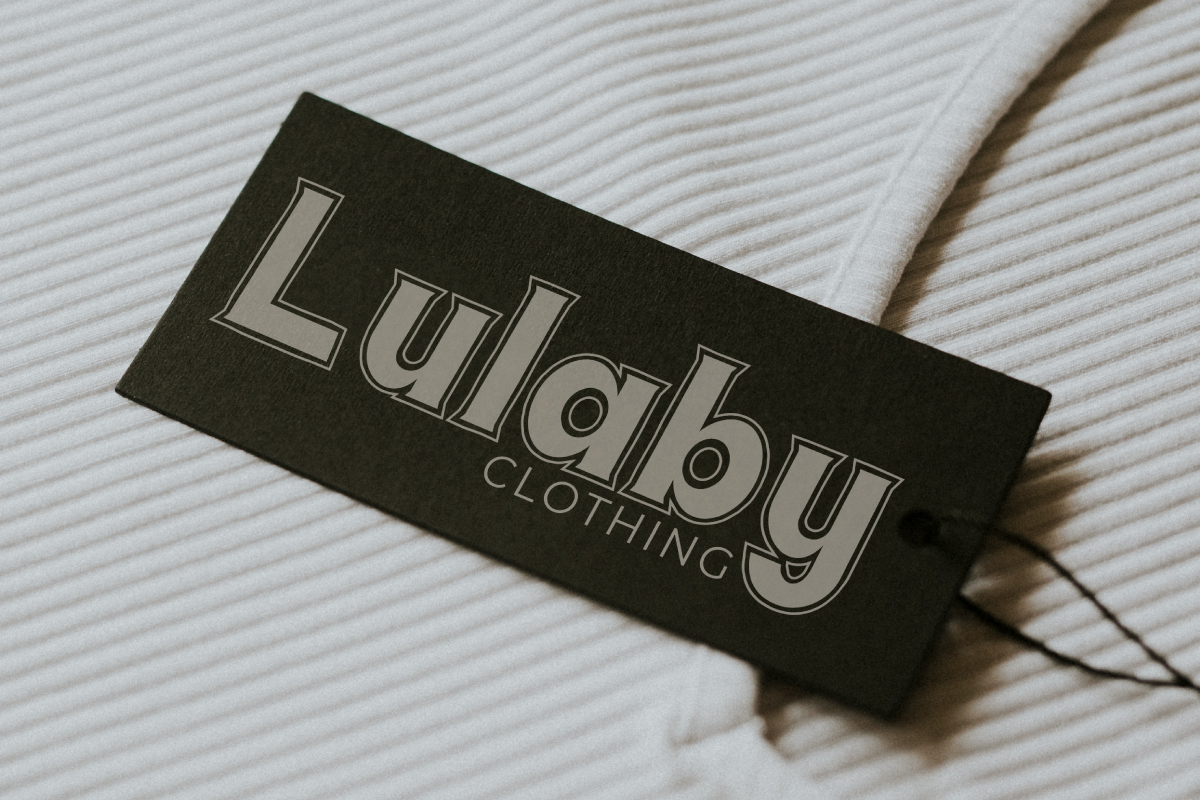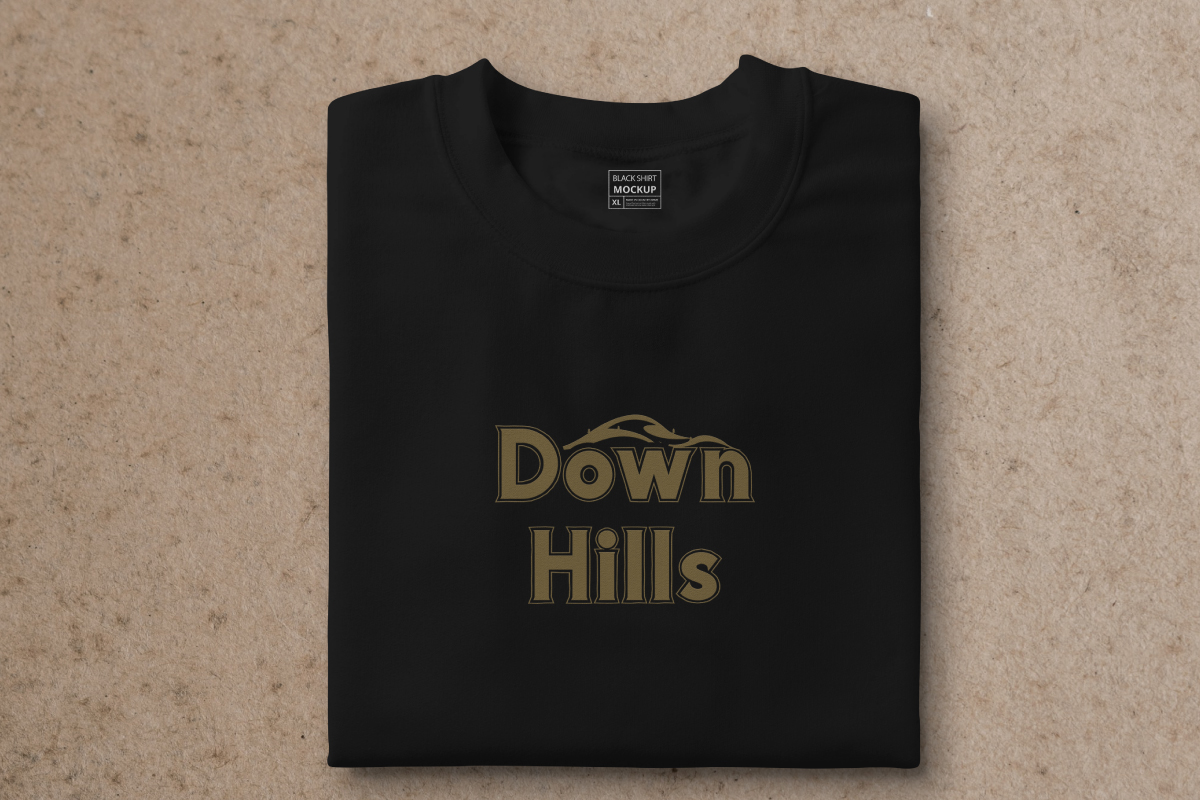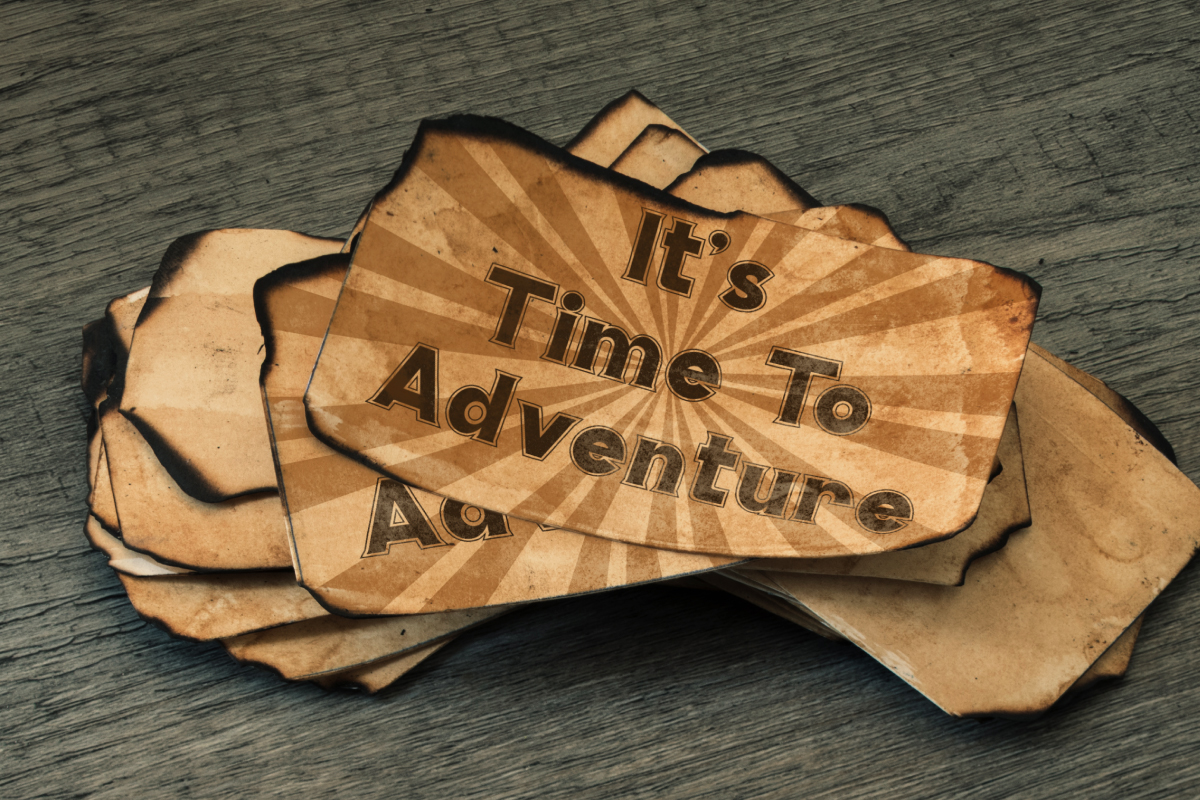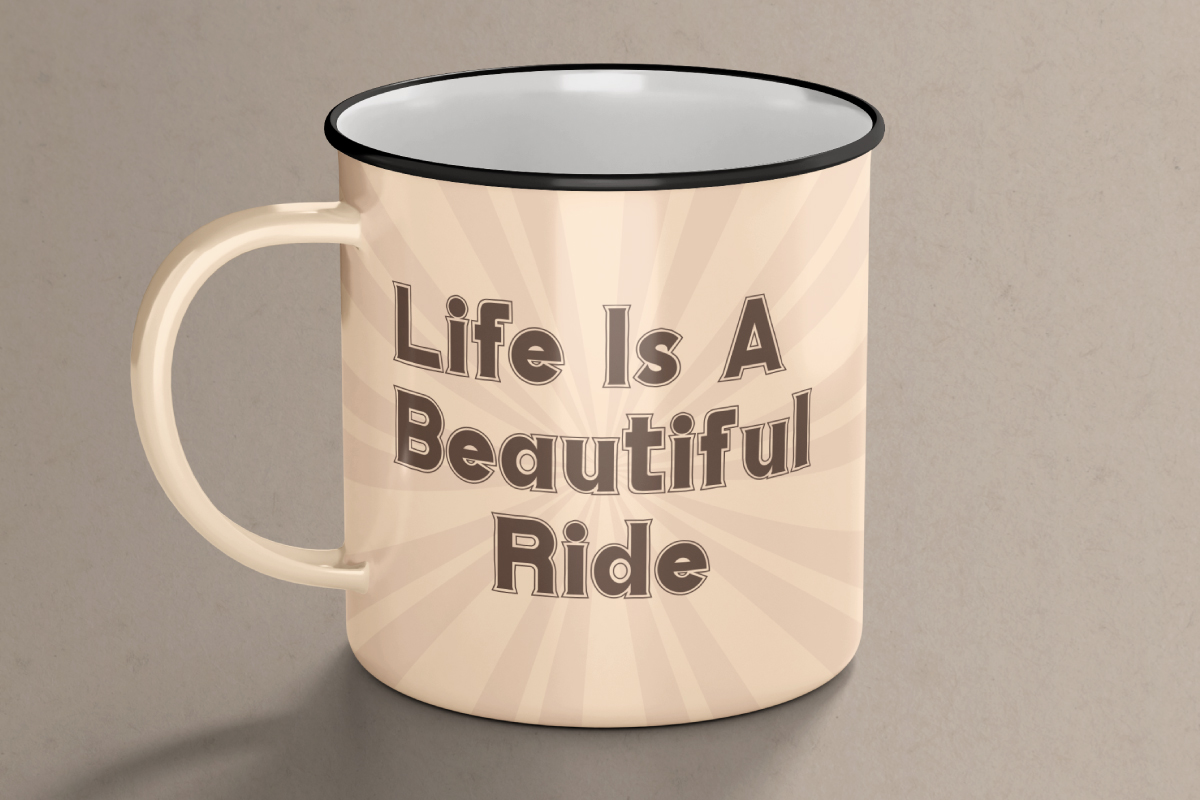
Stoppage Font
Stoppage Sans Serif Font
This is a sans serif font with vintage, elegant and energic style on its letters. This basic font has unique yet stylish letters exclusively made by NoahType Studio. The font will be amazing for any industries : finance, modern company, startup, cafe, events, clothing, festival, fashion brands and many more. Stoppage Font includes full set of Uppercase and Lowercase Basic Characters, Numerals and Punctuation. This font would be great to use any project that requires a cute look!